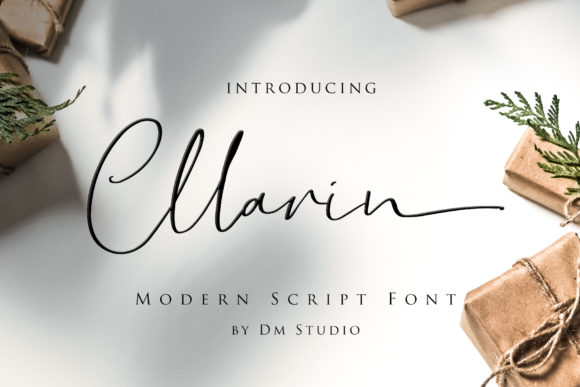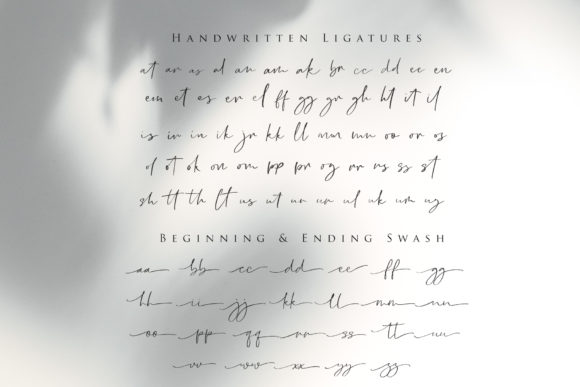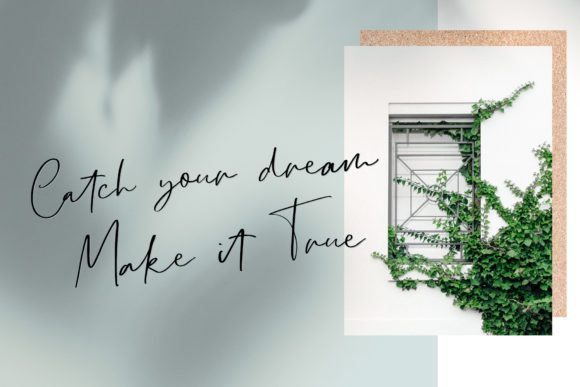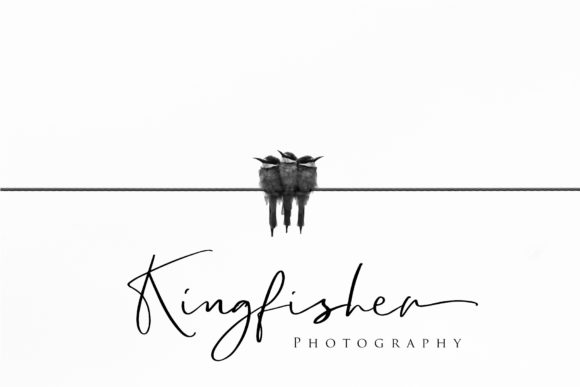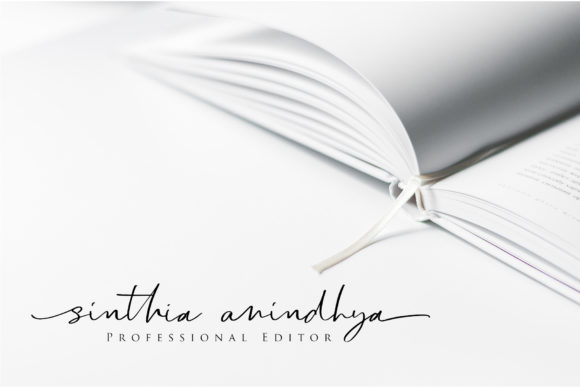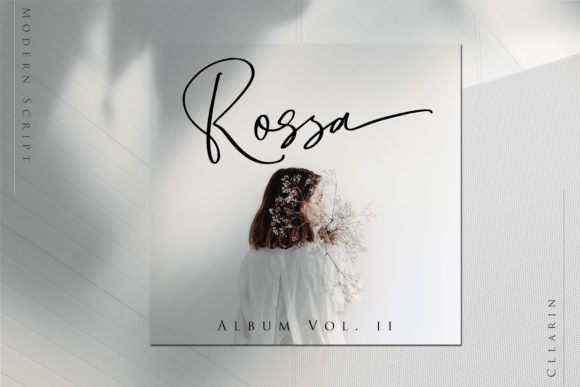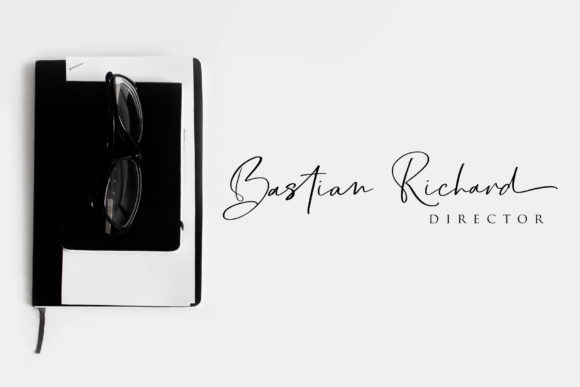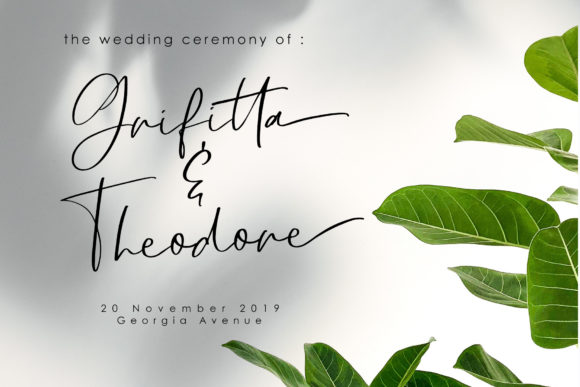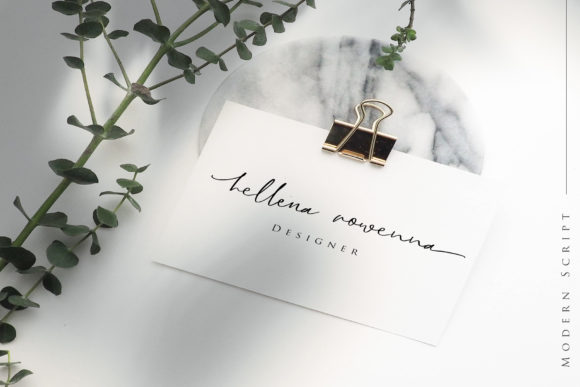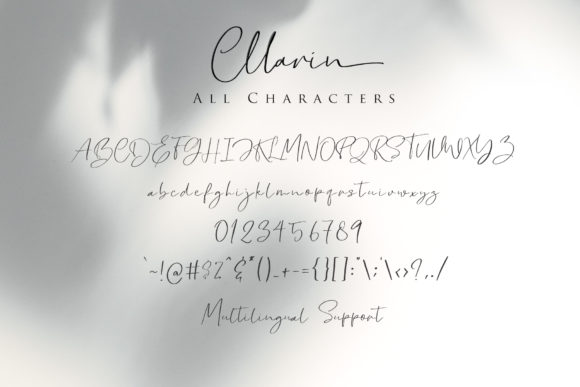
Cllarin Font
About Cllarin Font
Cllarin has an easygoing and relaxed appearance, but its contemporary design will add a dramatic effect to any design!